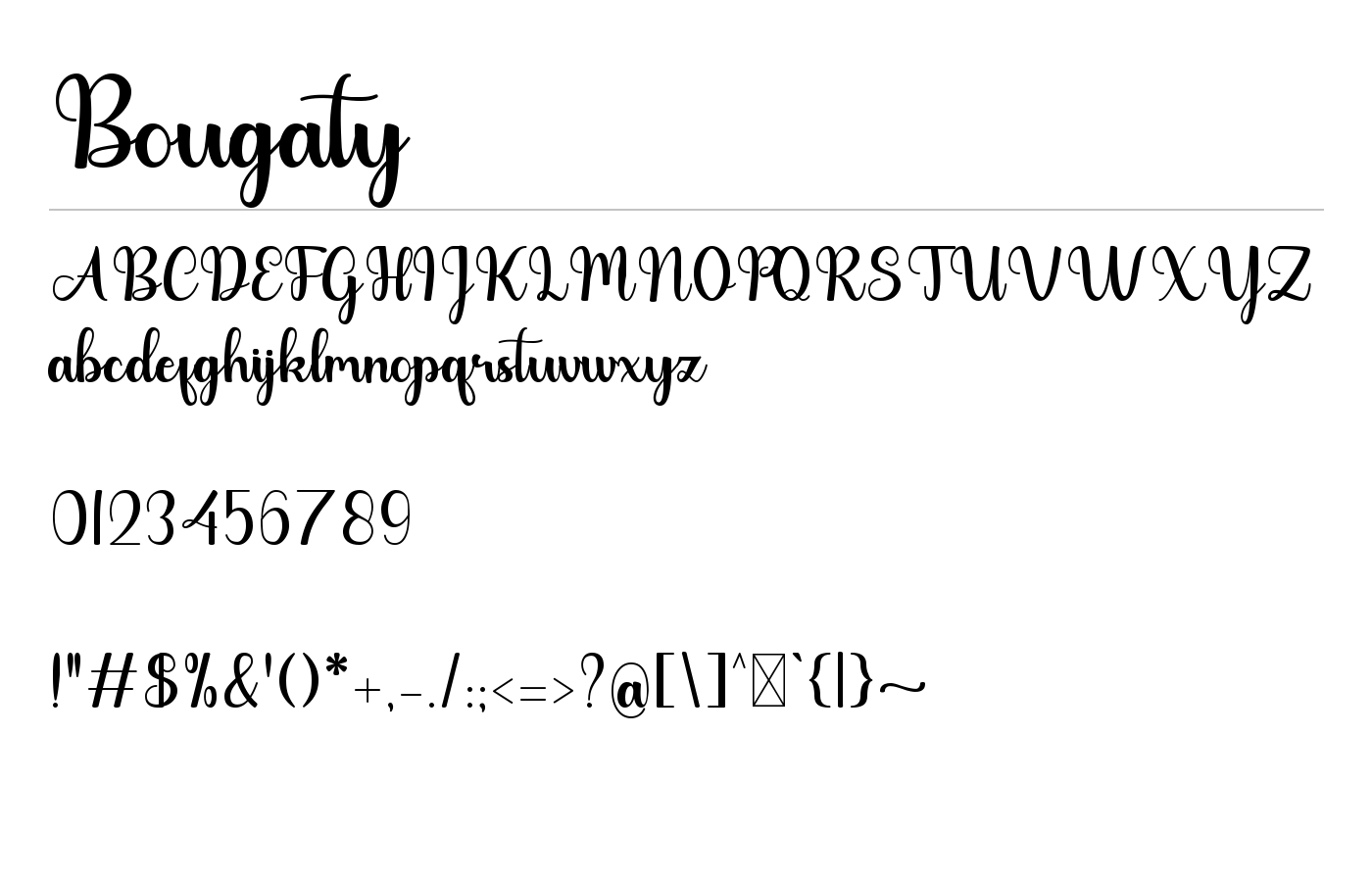
Bougaty is a playful and elegant script font featuring smooth, flowing strokes with delicate loops especially visible in its uppercase letters. This font has a moderate weight and a charming handwritten feel, combining both thin and slightly thicker lines that give it an inviting, casual yet refined style. Ideal for creative branding, invitations, and feminine packaging, Bougaty adds a personal, artistic touch while maintaining clear readability.
Bougaty Font
About Bougaty Font
| Font family | Bougaty Font |
| Designer | Hardiboy Design |